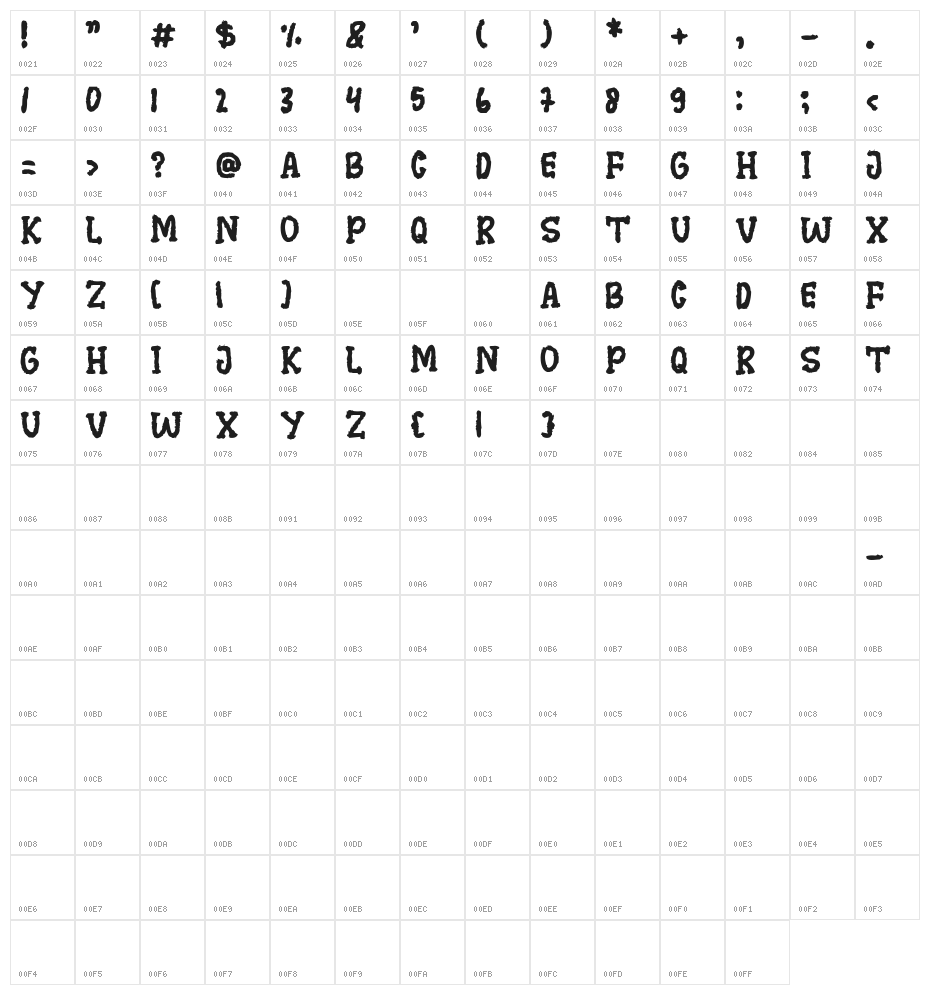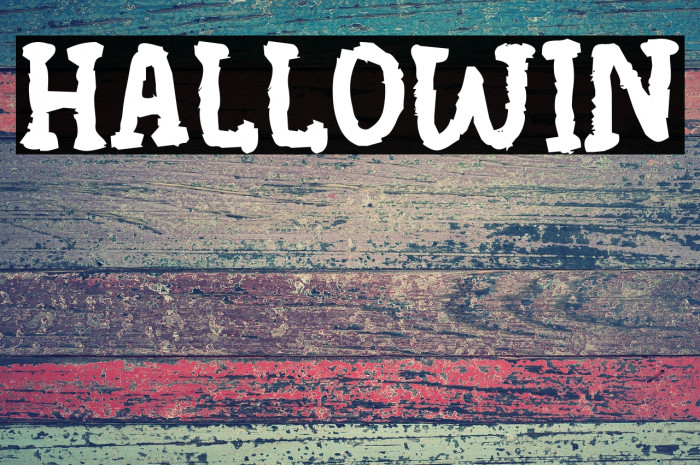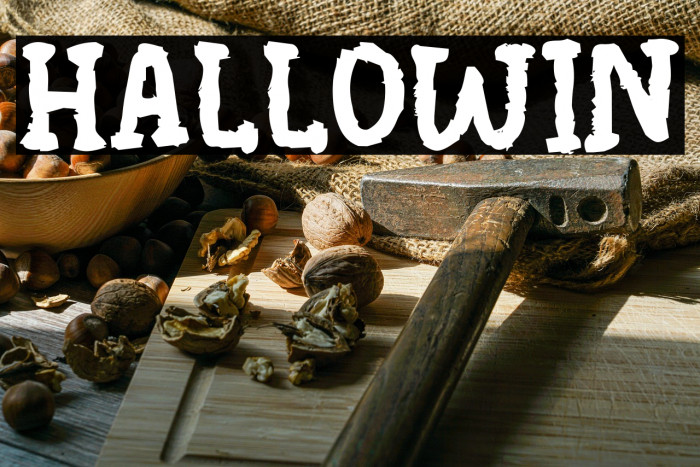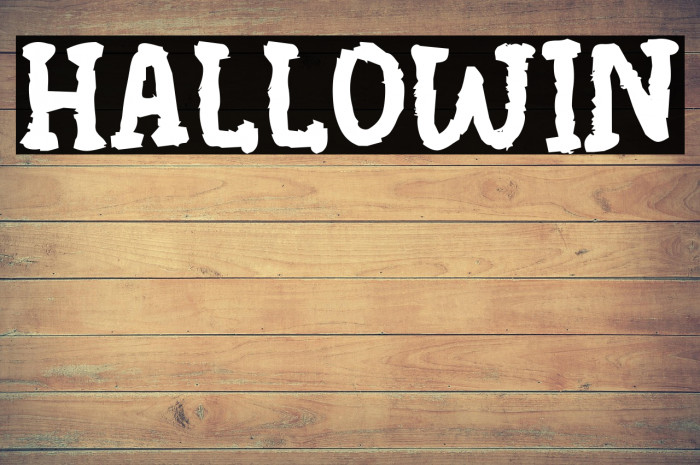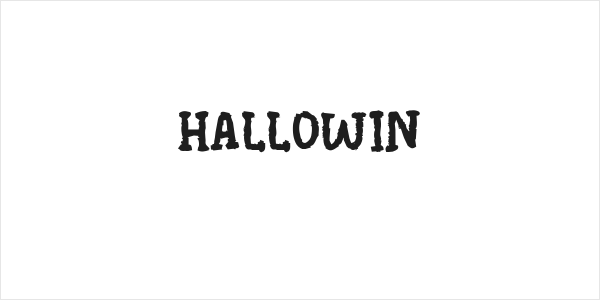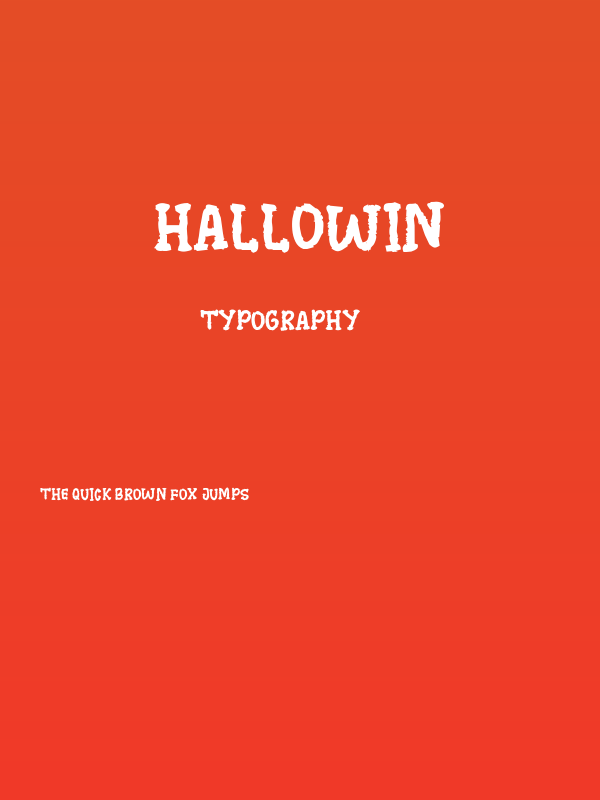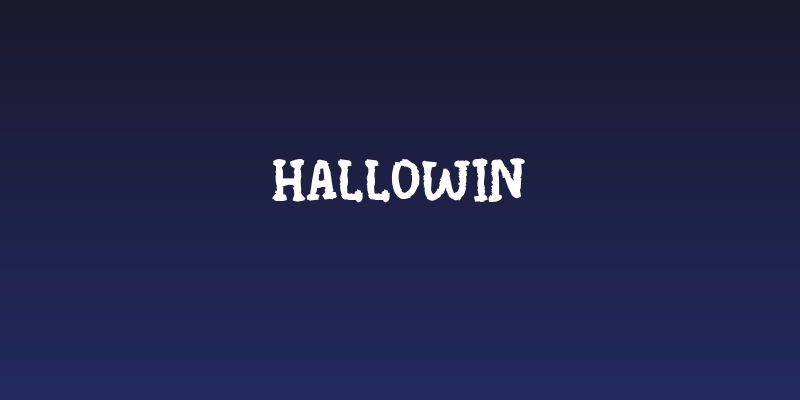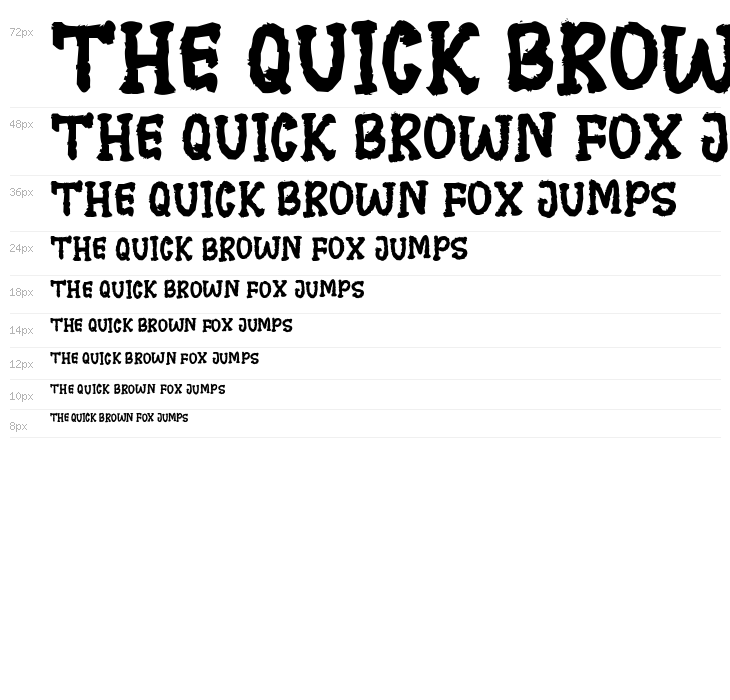
Hallowin Font
Hallowin Description
This font features a bold and rugged design, reminiscent of classic horror or Halloween themes. The characters have a distressed, uneven texture that gives them a hand-drawn appearance, adding to the eerie and spooky aesthetic. The uppercase and lowercase letters maintain a consistent style, with jagged edges and irregular strokes that enhance the font's unsettling vibe. Numbers and special characters follow the same design principles, ensuring a cohesive look across all elements. The font's unique style makes it ideal for projects that require a touch of the macabre or a playful yet sinister atmosphere.
| Proposed Projects | Perfect for Halloween-themed posters, horror movie titles, haunted house flyers, and spooky event invitations. |